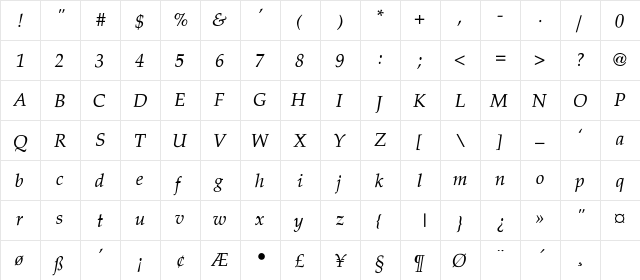
Palazzo-Thin-Italic Regular
Design Context for Palazzo-Thin-Italic Typeface
Palazzo-Thin-Italic offers clean, dependable letterforms without strong stylistic allegiance, making it a practical choice for designers who need flexibility. The dynamic lean of this cut emphasises speed and emphasis in any layout. The delicate stroke weight brings airiness and refinement to layouts.
Pro Tip: Try Palazzo-Thin-Italic for annotation and caption copy alongside an upright companion — the contrast in angle creates a dynamic but ordered typographic system.